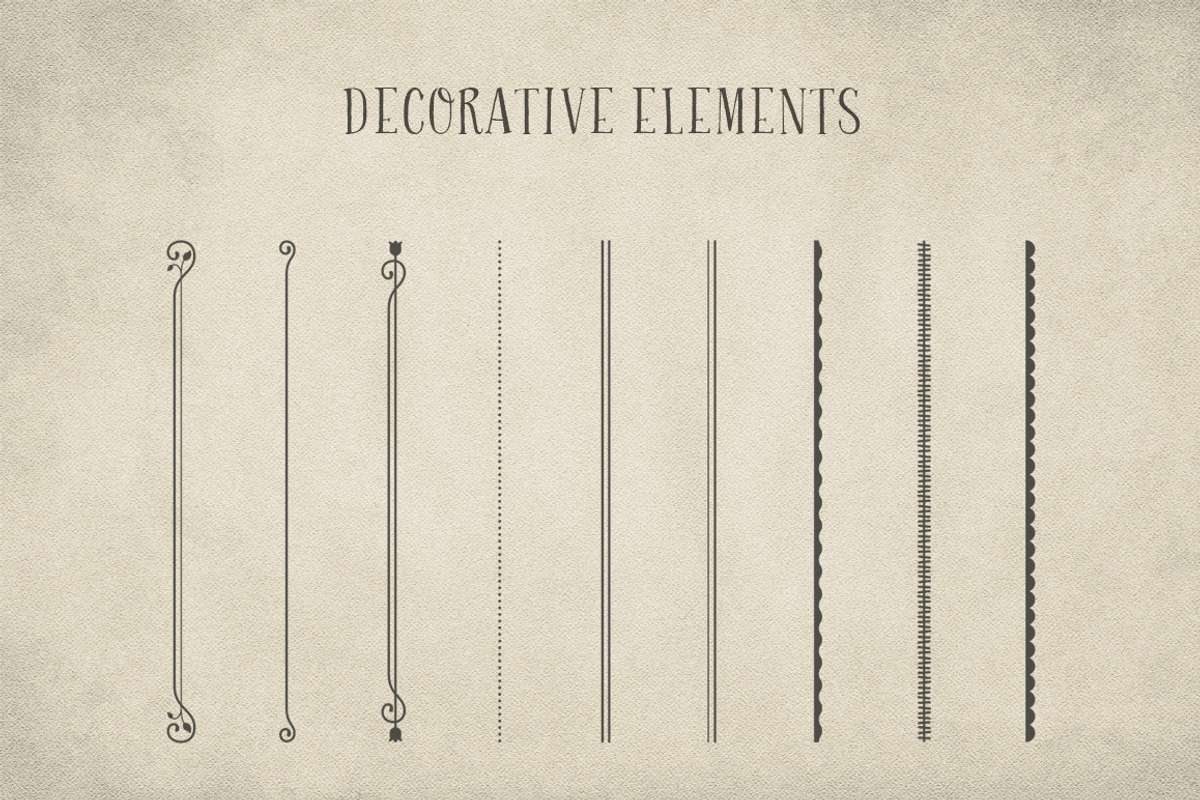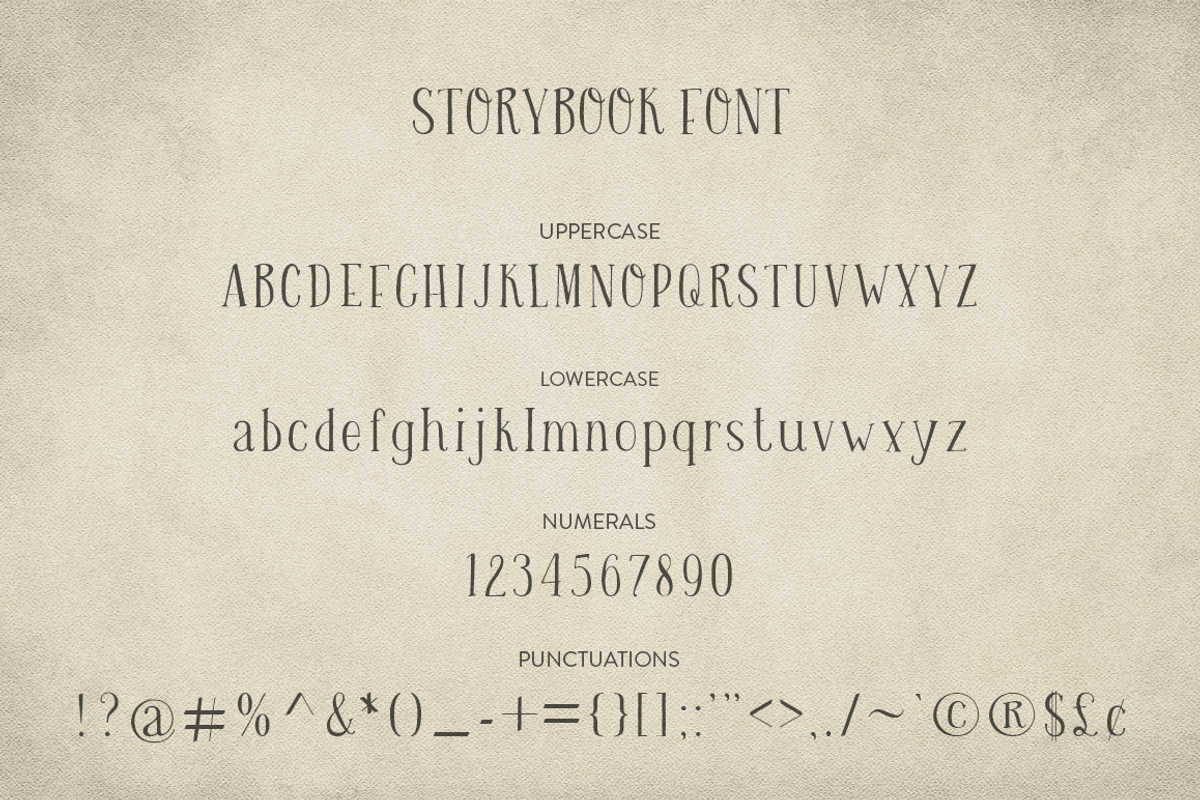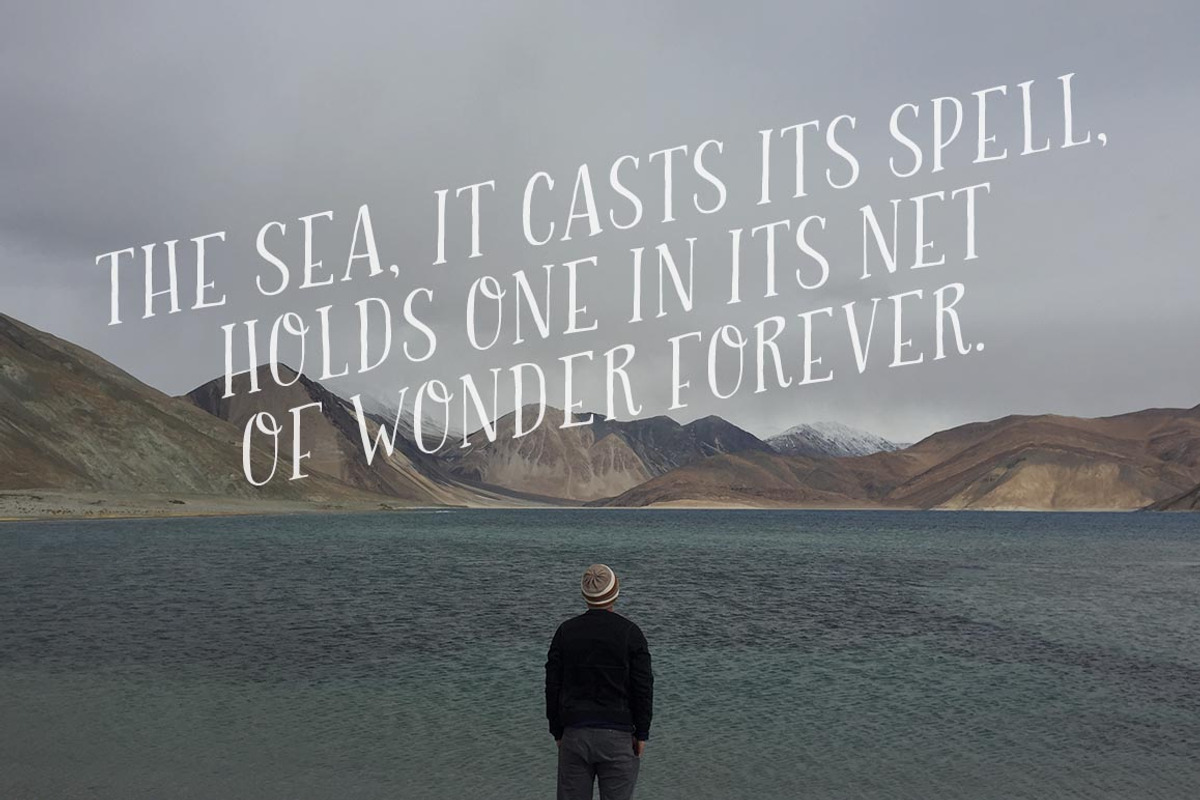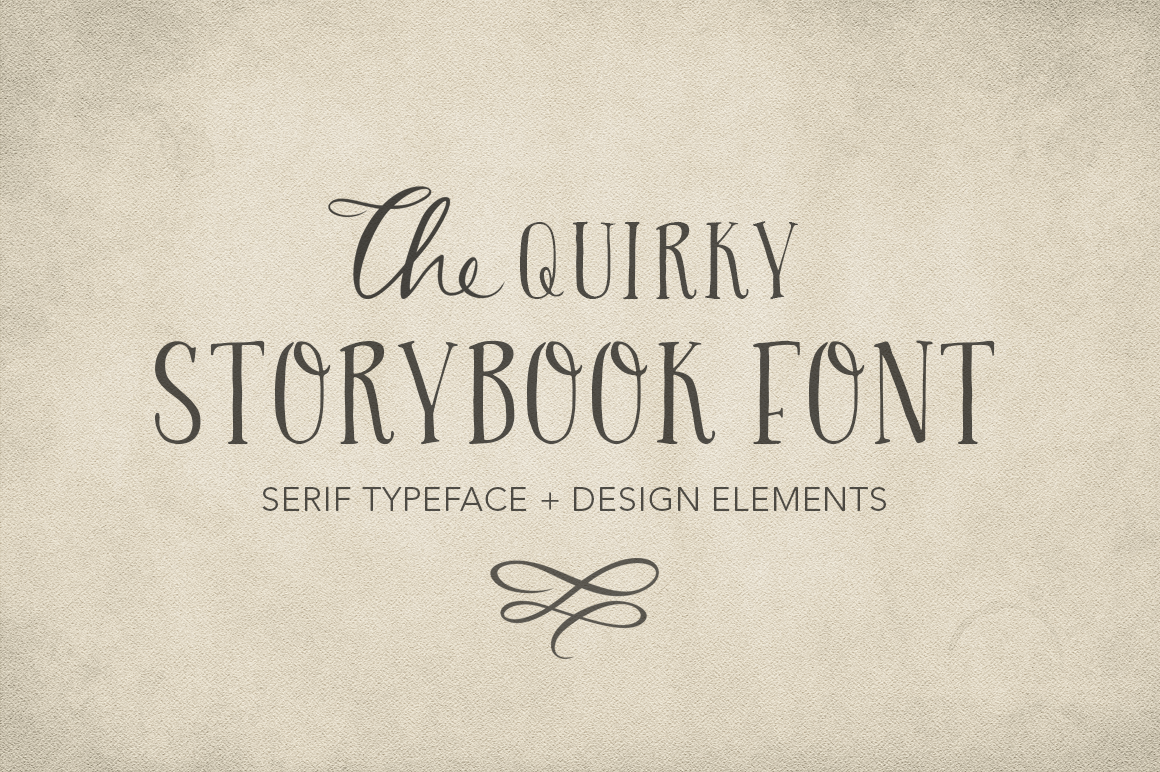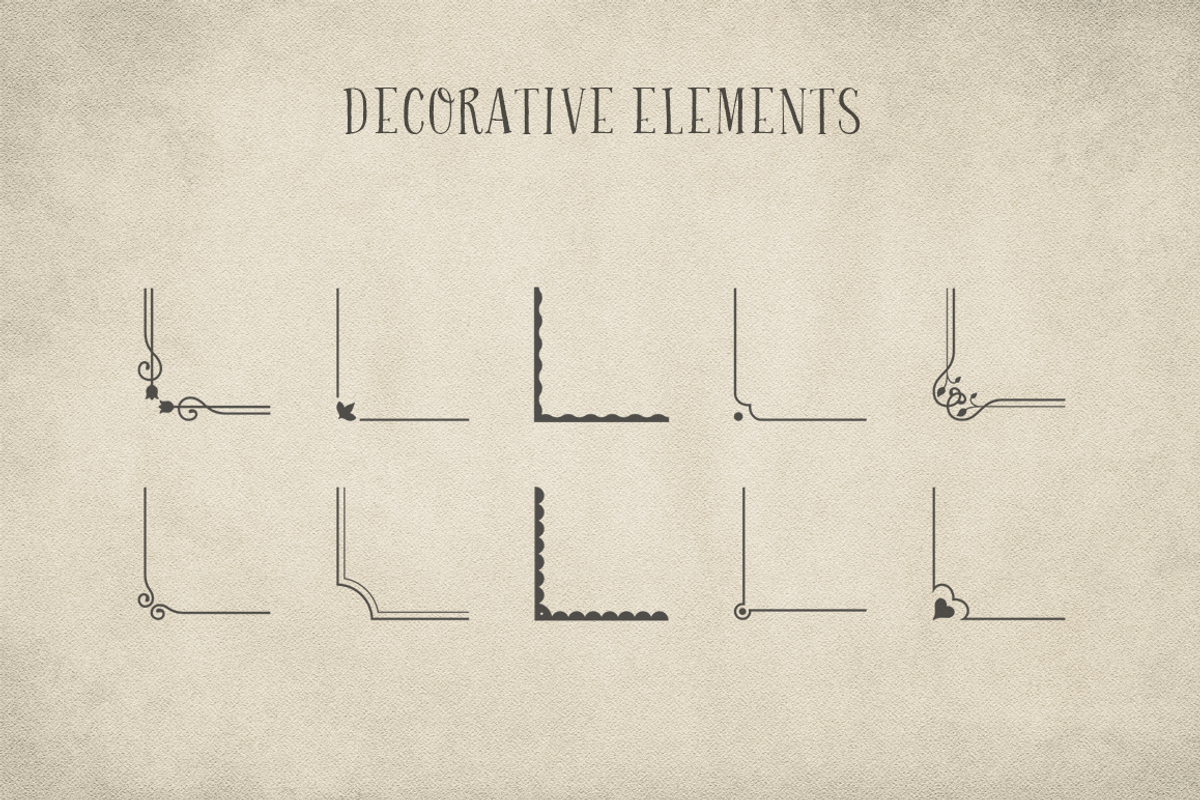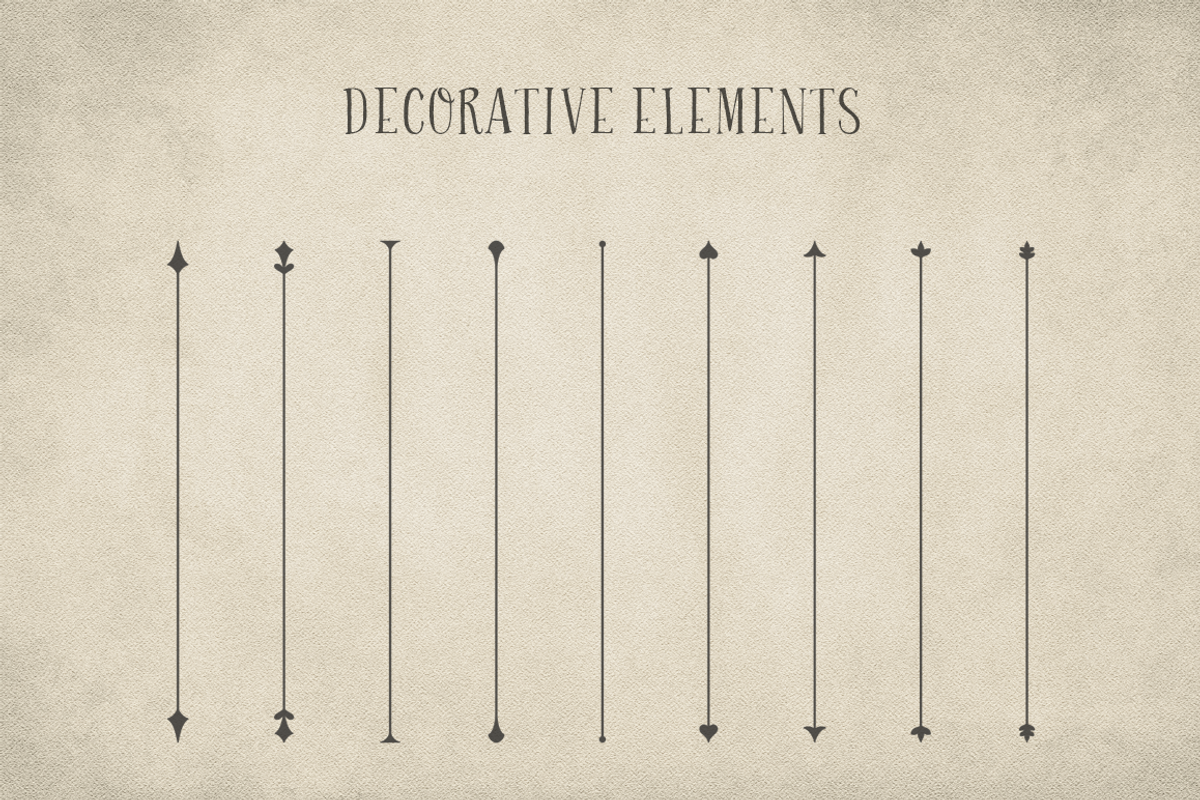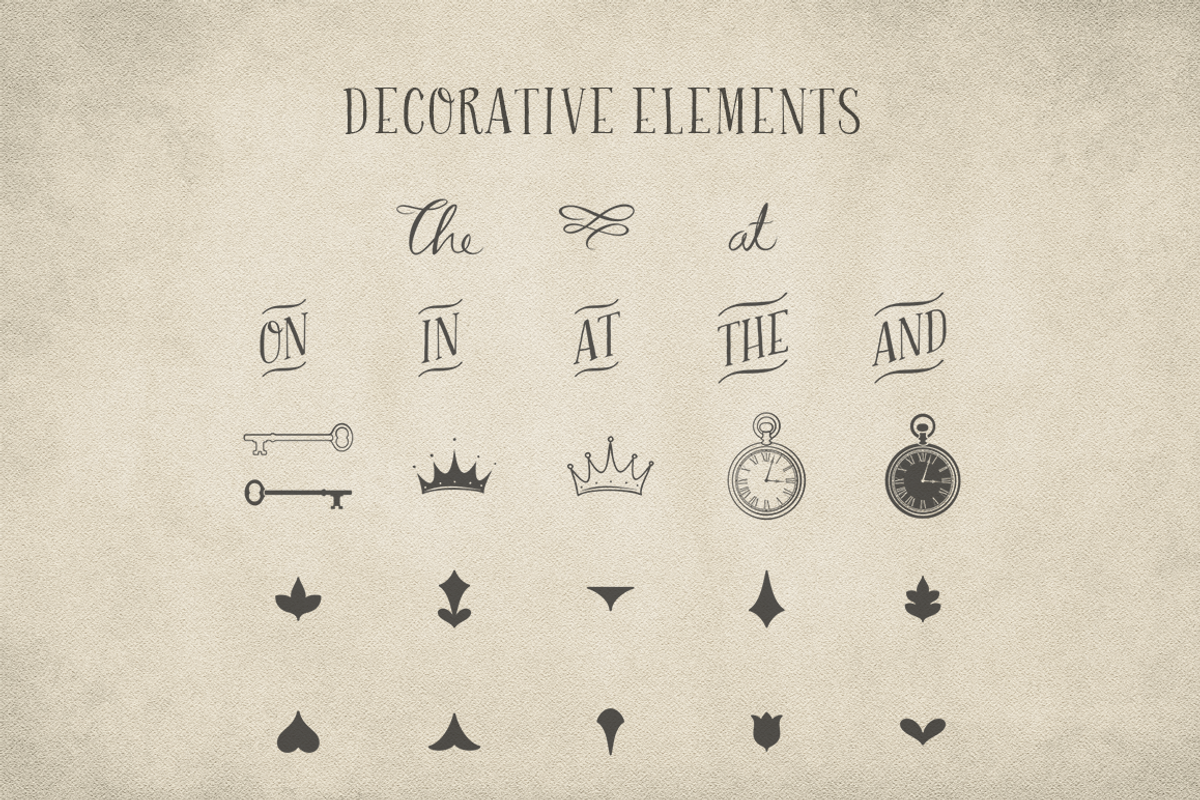
Quirky Storybook Font
Introducing the Storybook Font, a quirky classic serif typeface.
Storybook font offers a bold typographic set for different kind of design projects.
Containing uppercase and lowercase characters, numerals and a large range of punctuations.
Creates a perfect decorative pairing with over than 50 design elements.